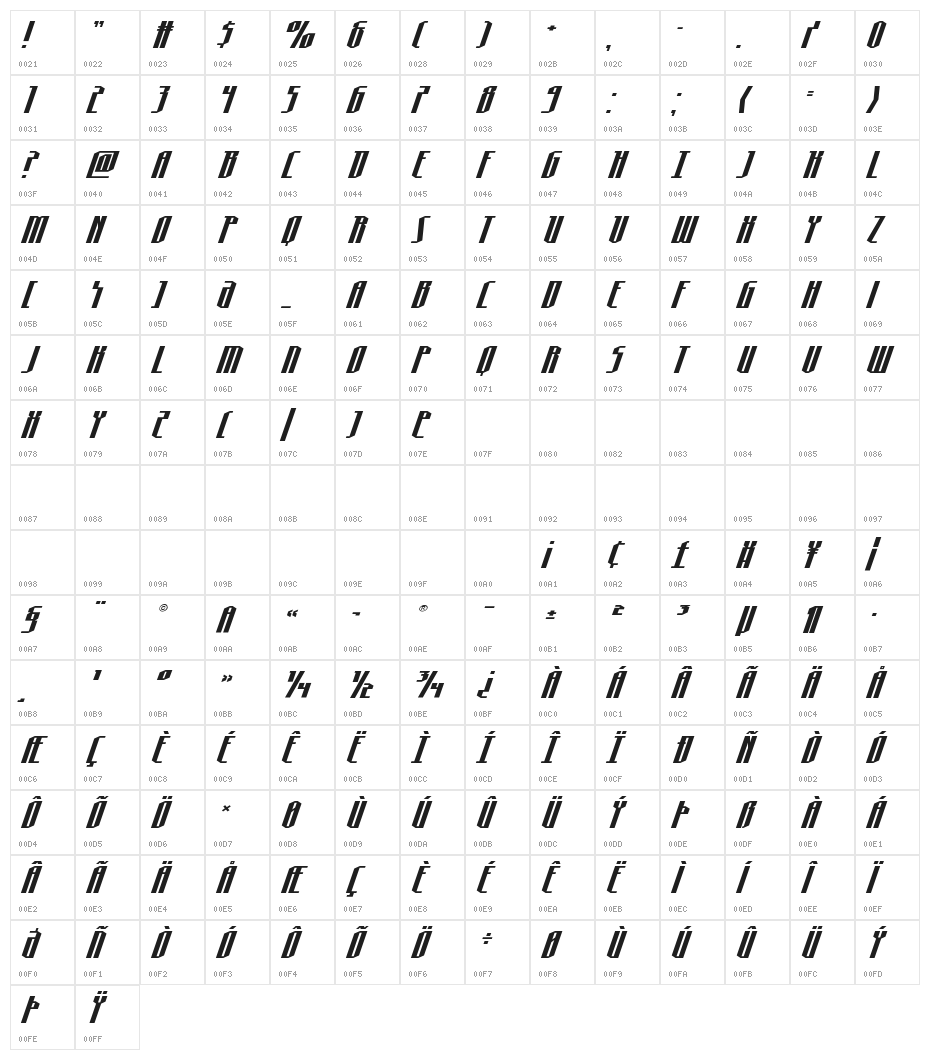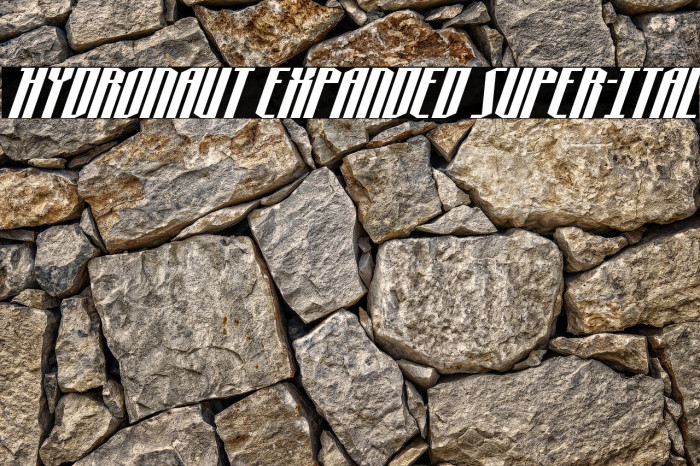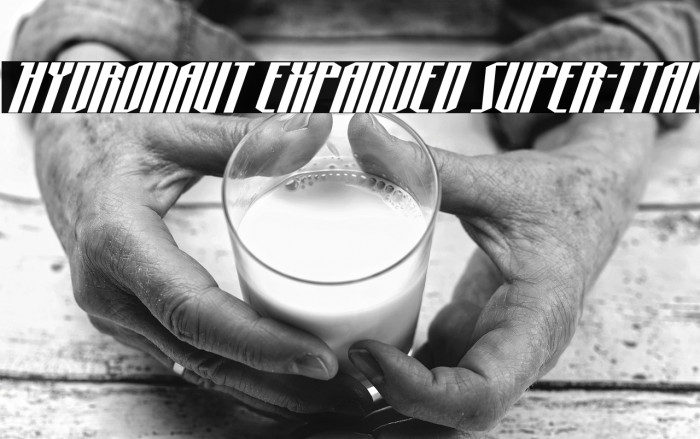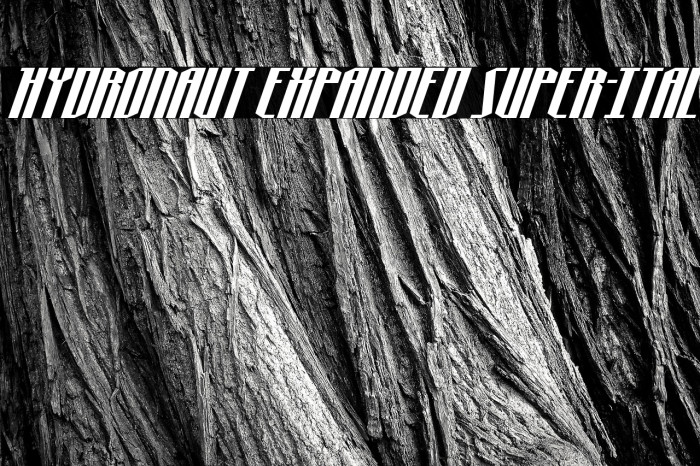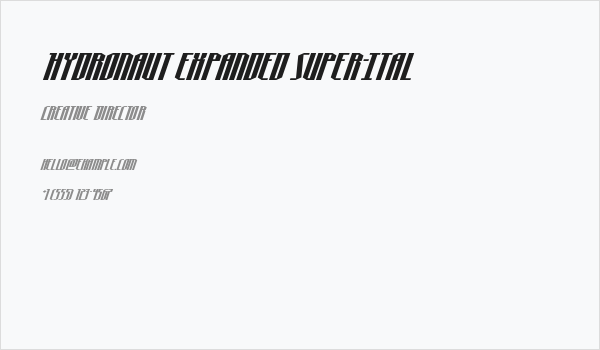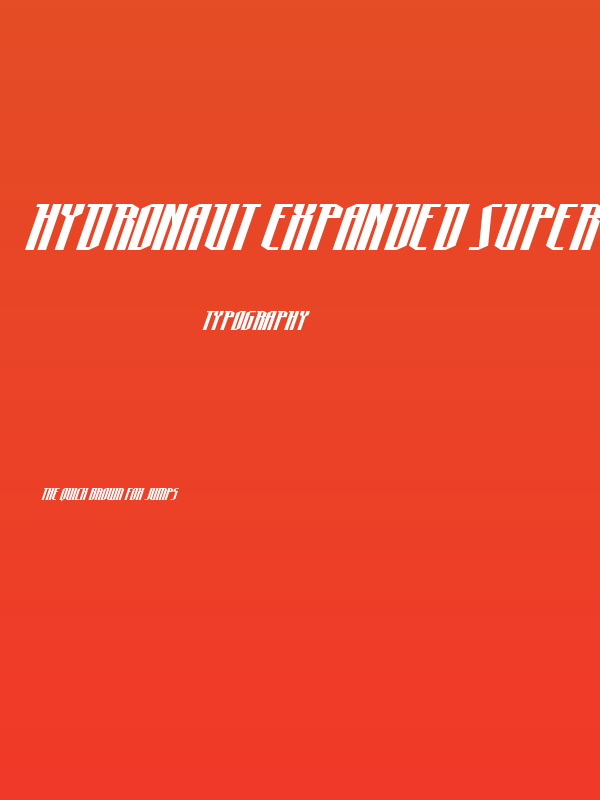
Hydronaut Expanded Super-Ital Font
Hydronaut Expanded Super-Ital Description
This font exhibits a bold and dynamic style with a distinctly futuristic and angular design. The characters are sharply defined with a forward-leaning italic slant, giving a sense of motion and speed. The expanded width of the letters enhances its presence, making it ideal for attention-grabbing headlines. The uppercase and lowercase letters maintain a consistent geometric structure, while the numerals and special characters complement the overall aesthetic. The high contrast between thick and thin strokes adds to its striking appearance, making it suitable for modern and edgy design projects.
| Proposed Projects | Ideal for sci-fi movie posters, video game titles, branding for tech companies, and dynamic advertising campaigns. |